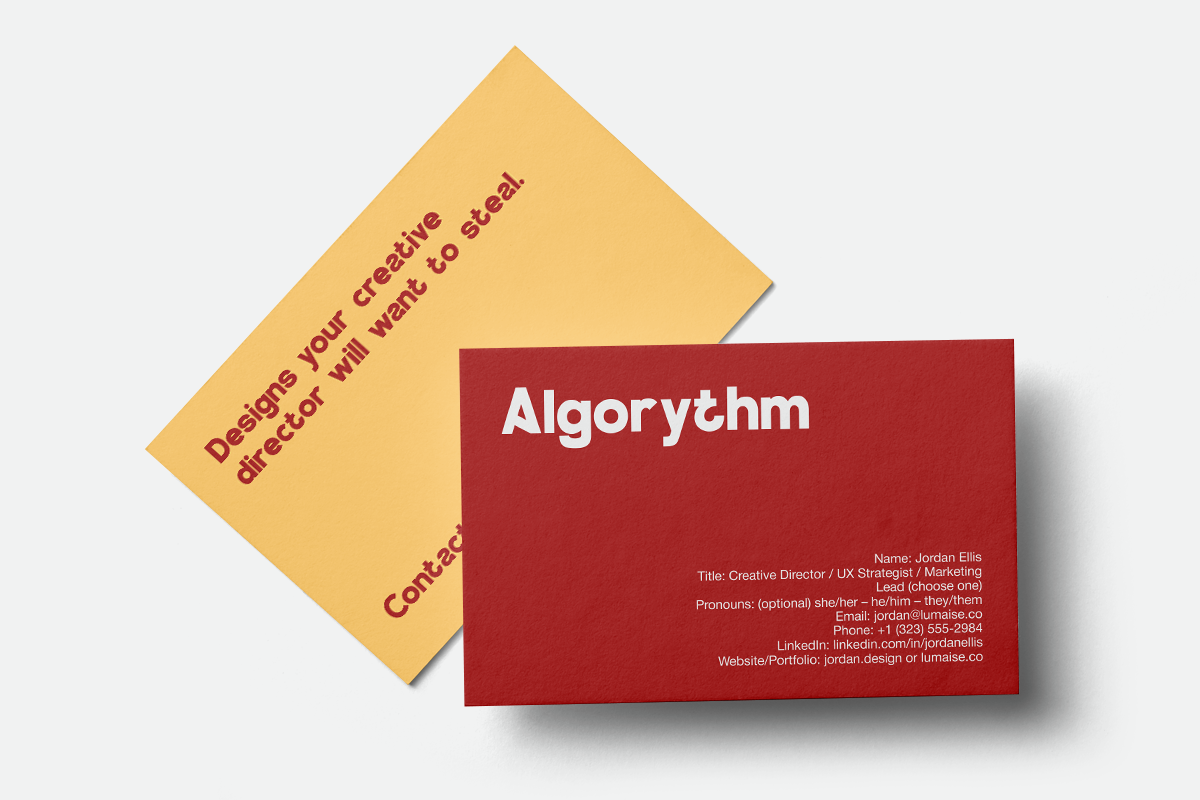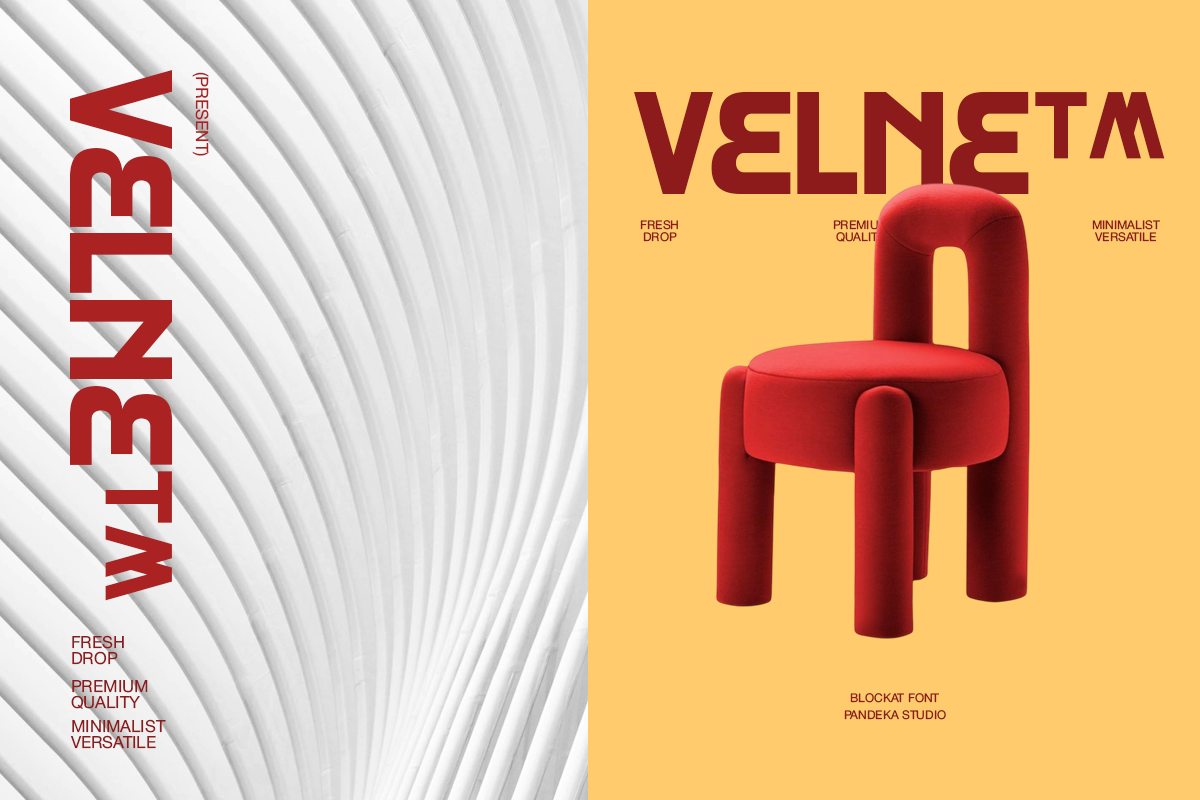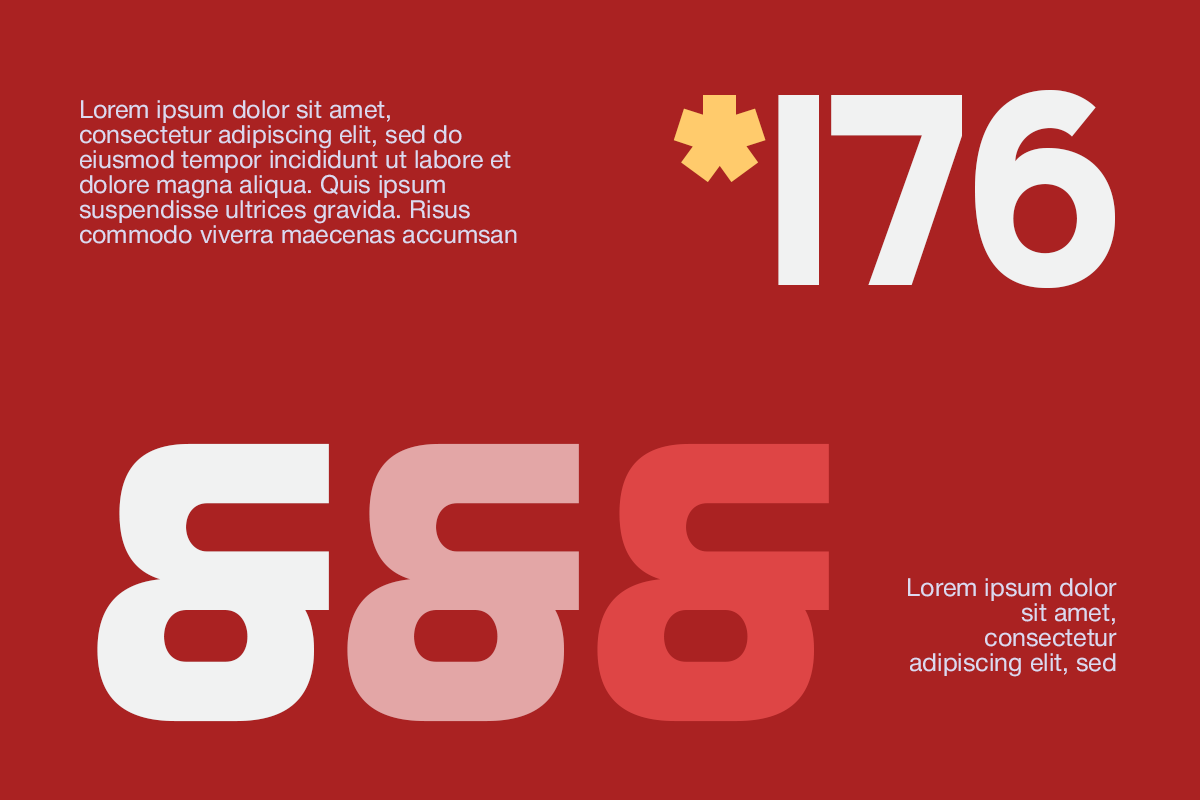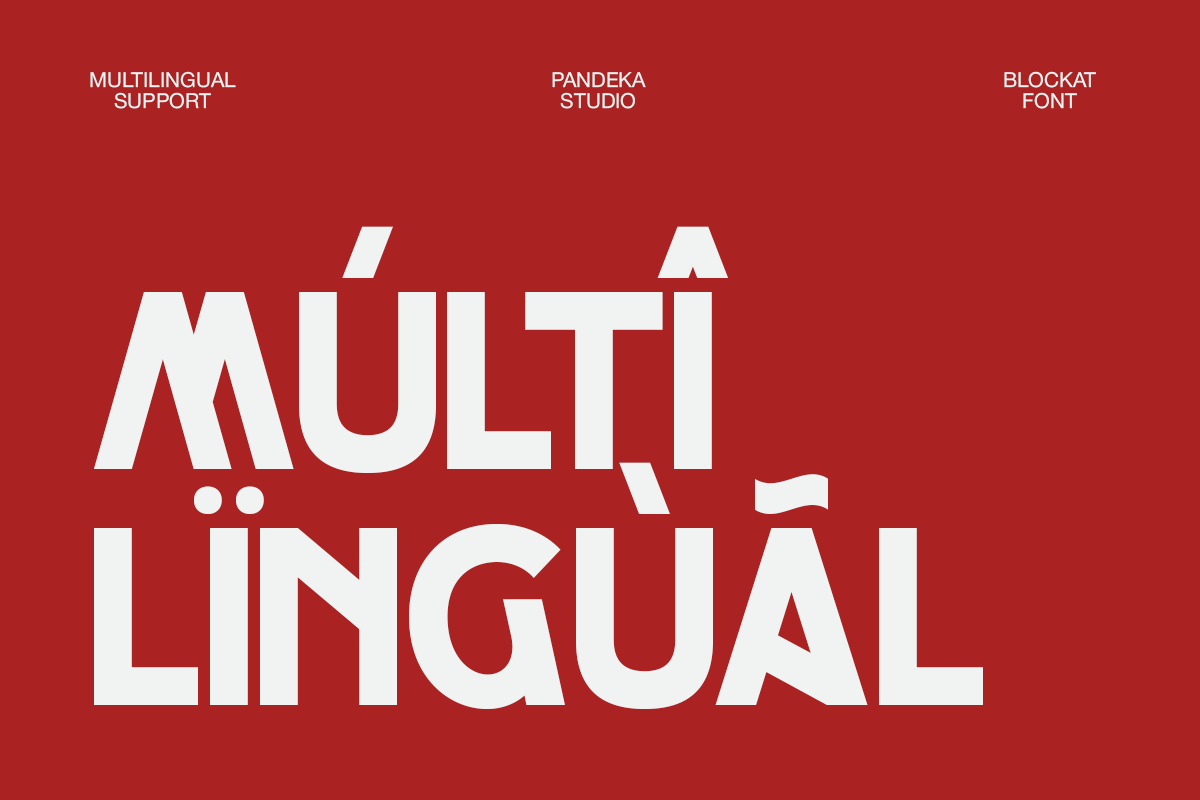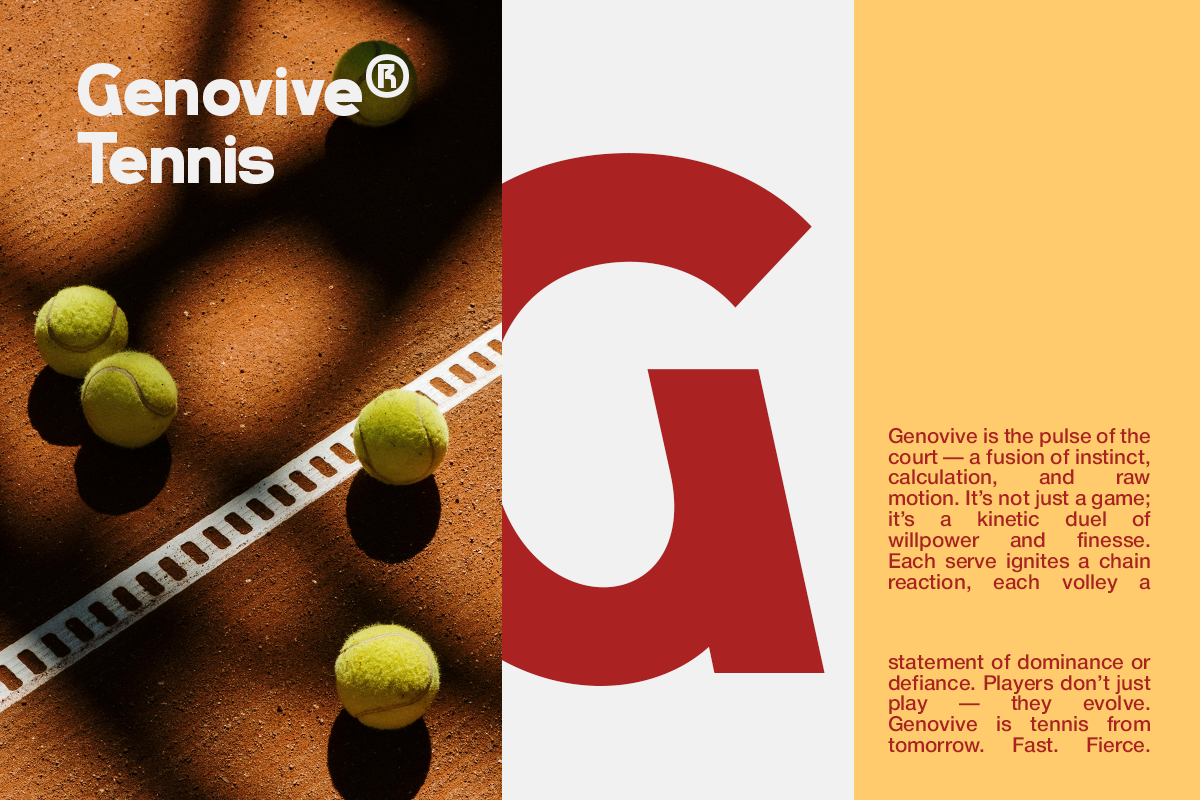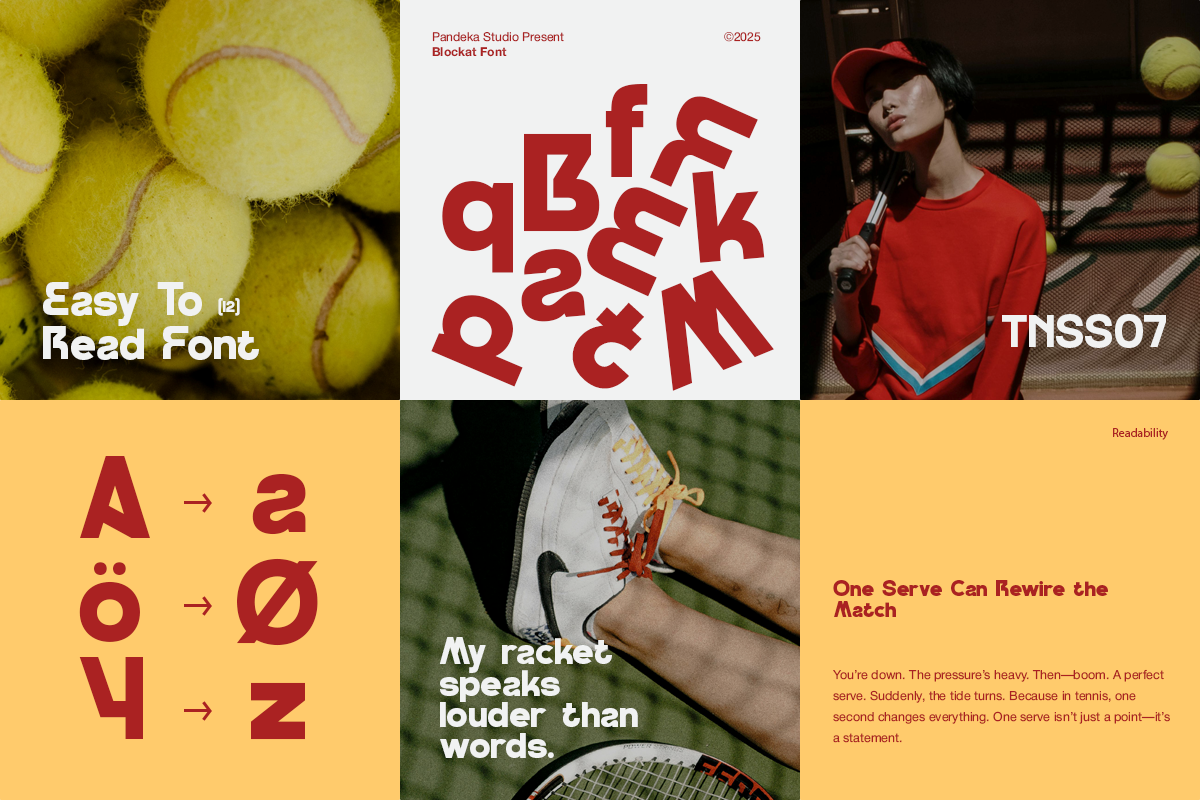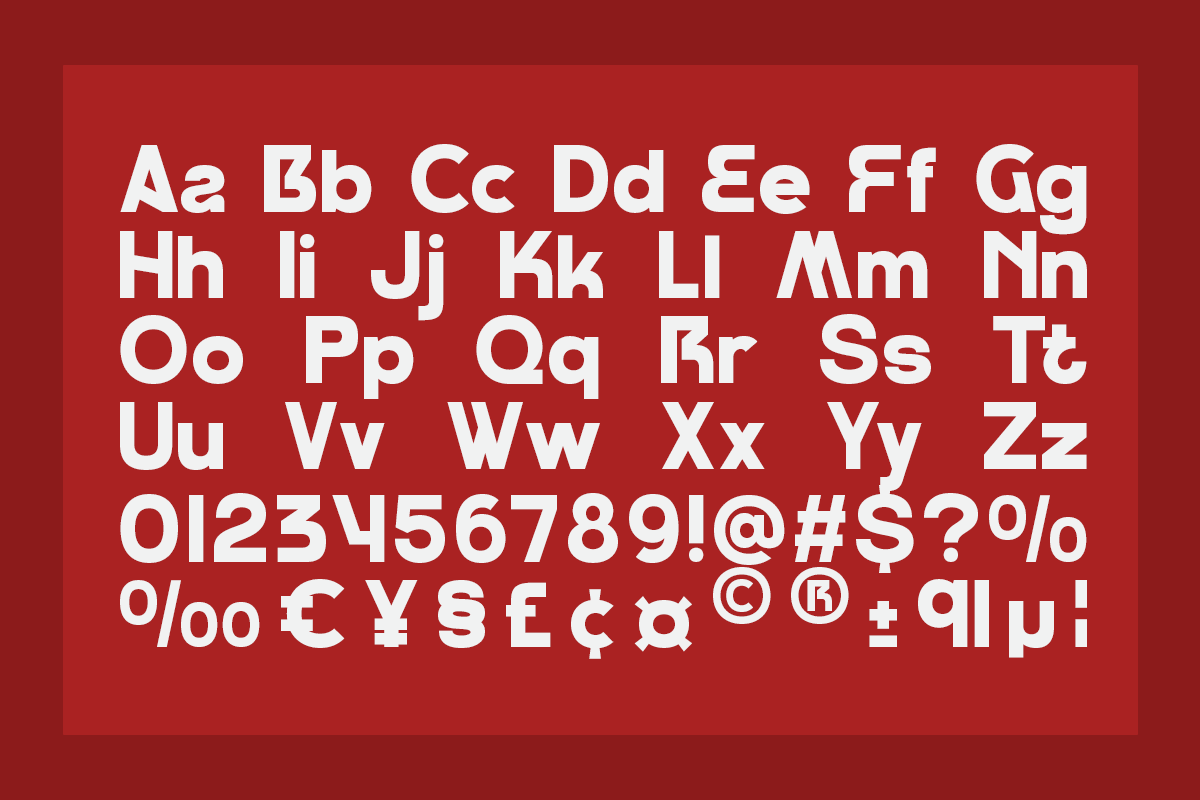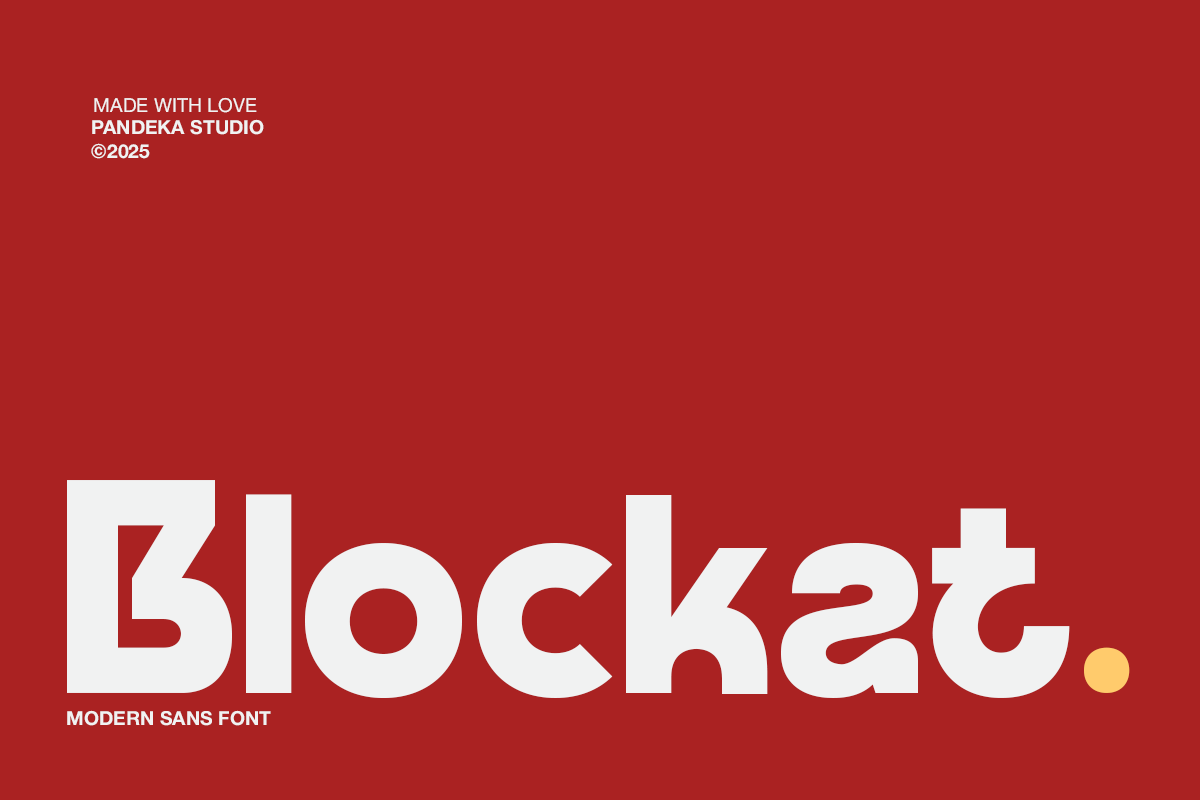
Blockat - Geometric Corporate Font
Blockat is a bold and modern geometric typeface designed for corporate identity, branding, and impactful communication. Its clean shapes and strong presence make it ideal for logos, posters, digital media, packaging, and business-oriented projects that require clarity and confidence.
With only one Regular style, Blockat delivers versatility in both print and digital formats. It includes uppercase and lowercase letters, numbers, punctuation, and full multilingual support, ensuring global usability while maintaining a sleek and professional look.
- Full Character Set: Uppercase, lowercase, numbers, symbols, and punctuation